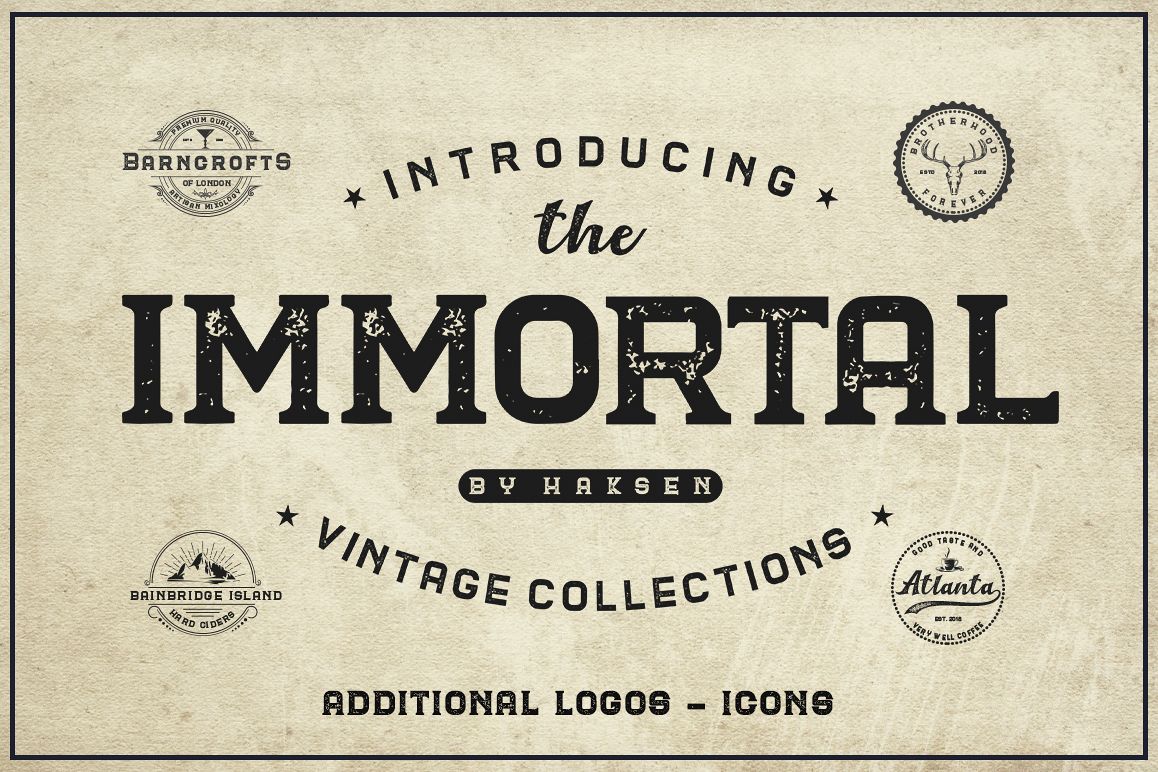
The Immortal // Vintage Collection
Introducing – The Immortal Vintage Fonts Collection!
The Immortal Collection contains a set of 3 style fonts and 6 fonts
include with 2 textured fonts (Rough texture and Solid/Clean) authentic hand crafted look. The fonts are inspired by vintage brick wall murals and they
work perfectly for logo, packaging or title design with a hand crafted vibe. Furthermore the product contains a set of 15 editable logo templates for Adobe
Illustrator (CS & CC) and over 18 hand drawn icons!! This makes logo & badge
design easier than ever before.
TTF) Including special alternates and swashes!!
Sans Rough texture Uppercase
San Solid/clean Uppercase
TTF) San Serif Rough texture Uppercase
TTF) San Serif Solid/clean Uppercase
Logo Templates -
This is great for understanding how the typefaces were intended to be used with
Icons Vector -